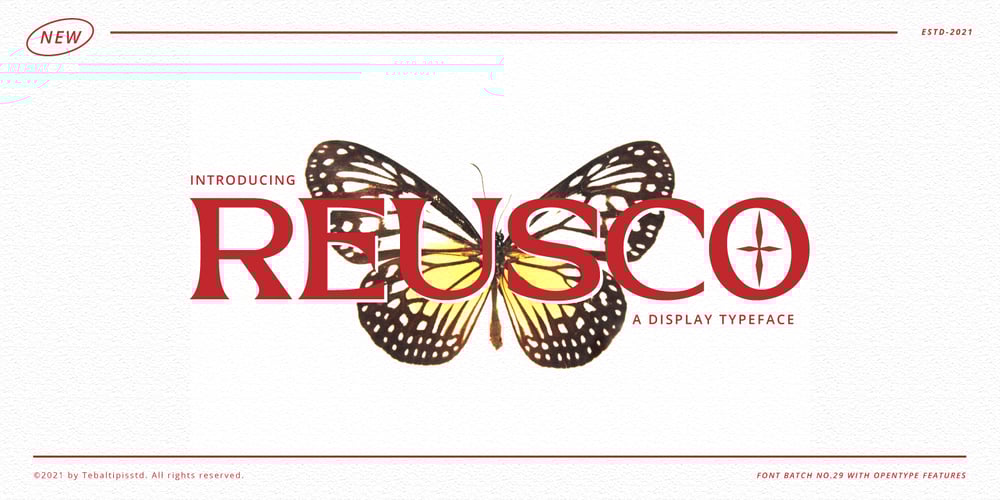
Reusco Display Font Family was designed by Dzulka Elfira and published by Tebaltipis Studio. Reusco Display contains 1 styles and family package options. Reusco Display comes with some alternates, so you can combine it to make a perfect typography design. It is perfect for your up coming projects. Such as luxury logo and branding, classy editorial design, woman magazine, cosmetic brand, fashion promotional, art gallery branding, museum, historical of architectural, boutique branding, stationery design, blog design, modern advertising design, card invitation, art quote, home decor, book/cover title, special events and any more.That’s it! Have fun with Reusco Display font.Thank you!Tebaltipis Studio